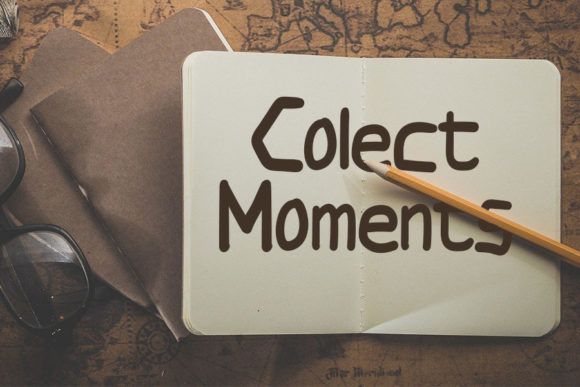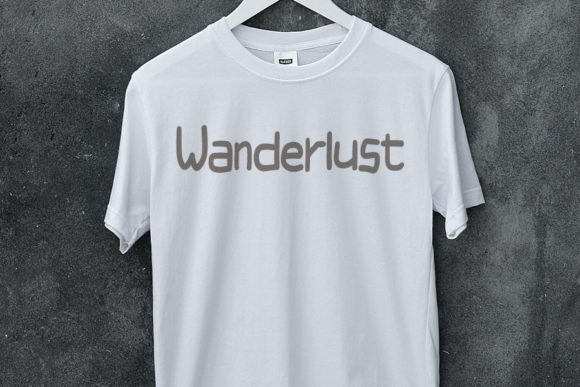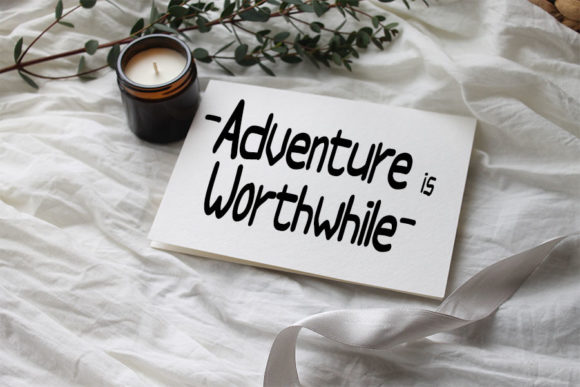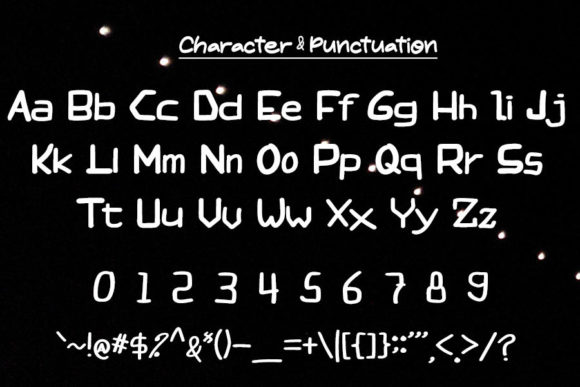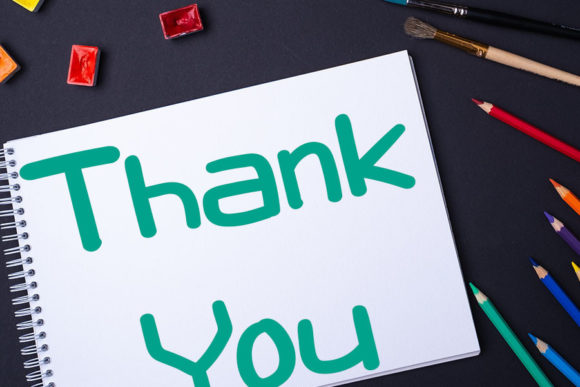
Camping in Summer Font
About Camping in Summer Font
Camping In Summer is a modern script font. Use this font for with your designs and explore its endless possibilities.